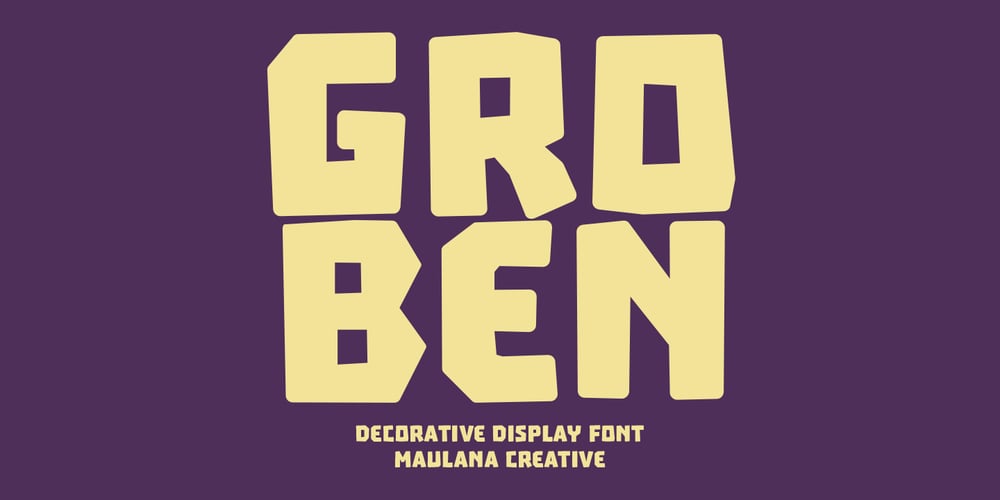
MC Groben
MC Groben font
MC Groben Font Family was designed by Gilang Maulana and published by Maulana Creative. MC Groben contains 1 styles and family package options. Groben is a All Caps Bouncy Sans Display font. Bold stroke, fun character with a bit of ligatures and alternates. To give you an extra creative work. Groben font support multilingual more than 100+ language. This font is good for logo design, Social media, Movie Titles, Books Titles, a short text even a long text letter and good for your secondary text font with script or serif. Make a stunning work with Groben font. Cheers, Maulana Creative